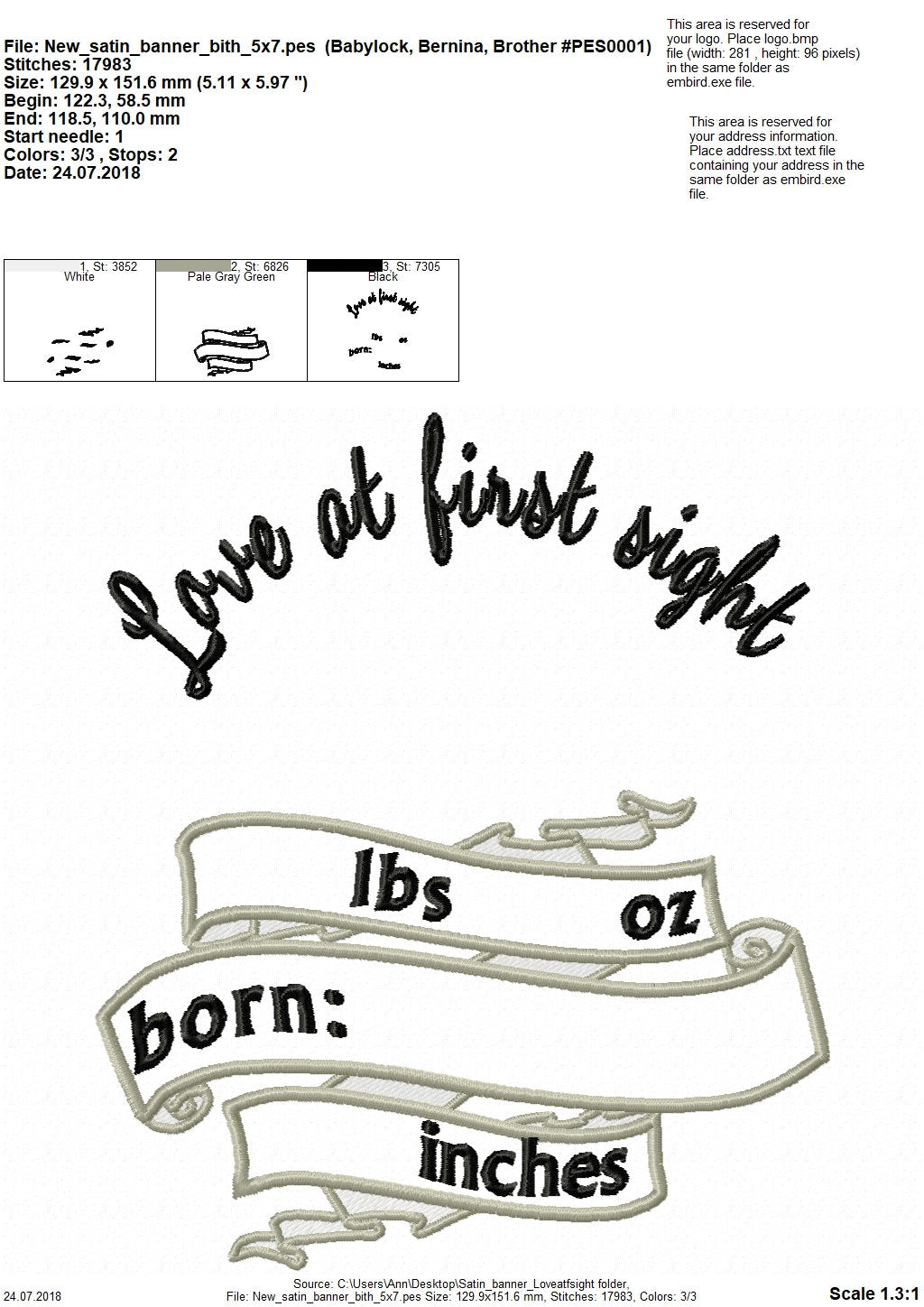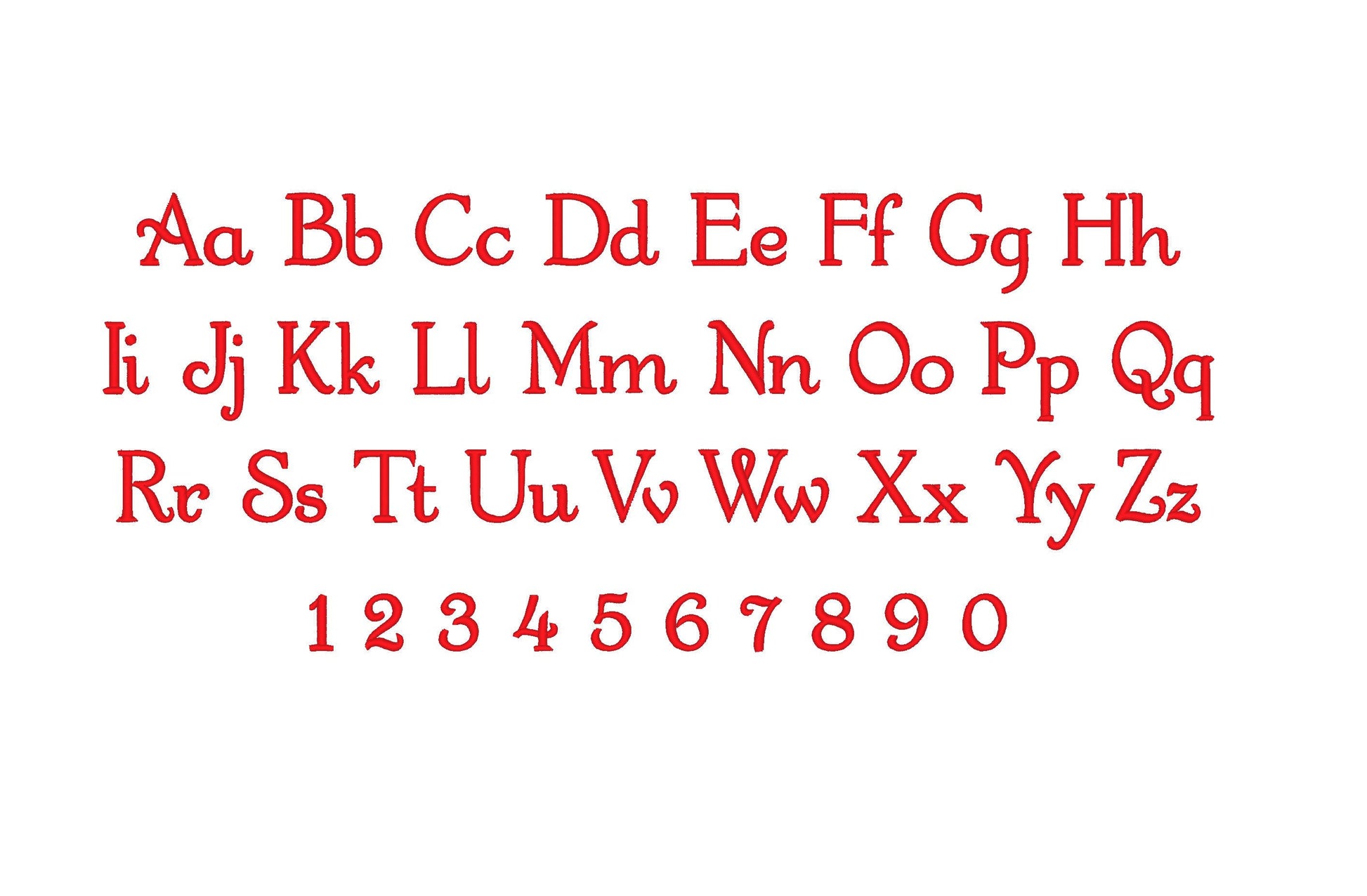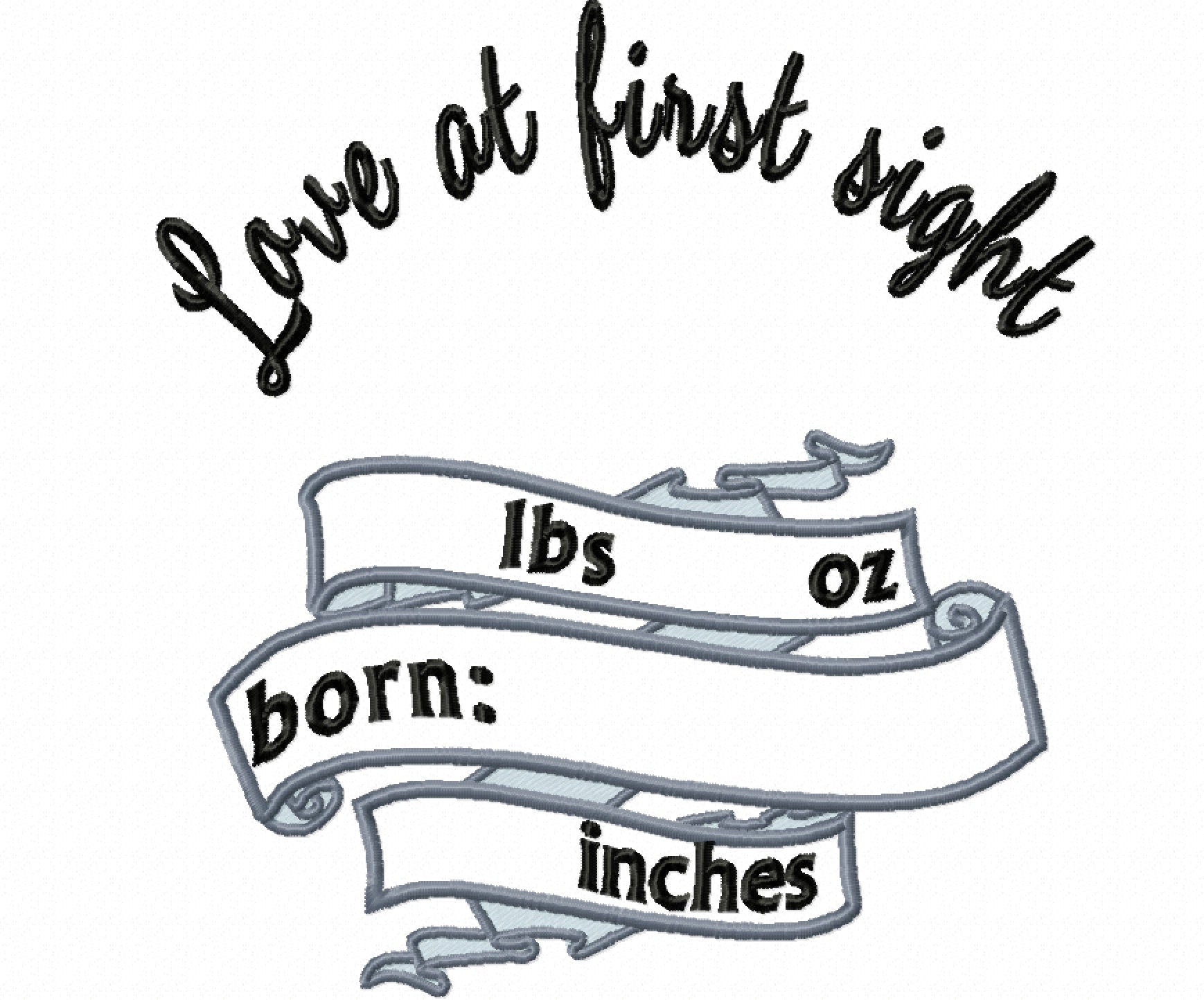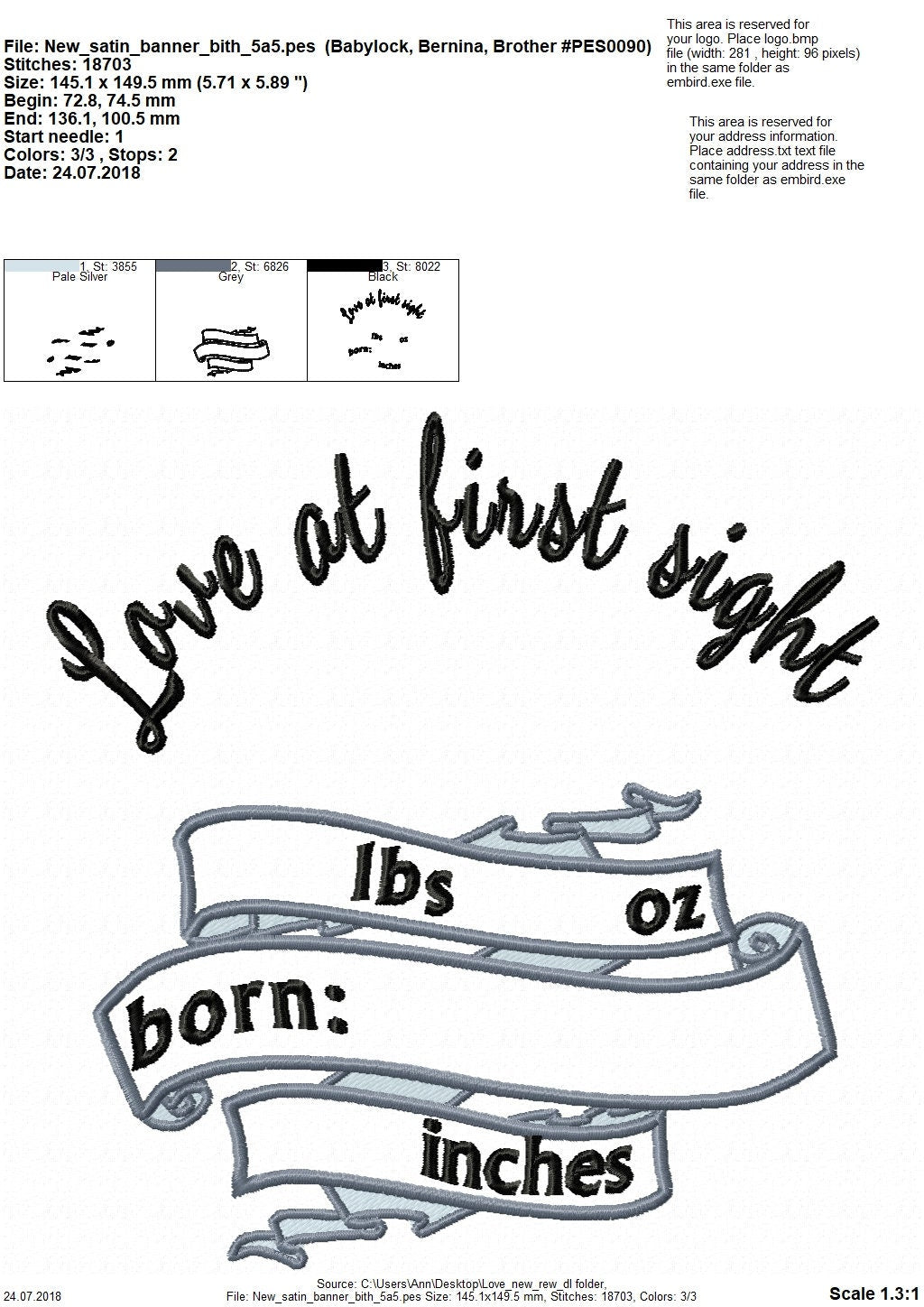
Birth Announcement Template and Mini Font
Or click to open the linkA bold birth announcement template with a matching mini font, for the baby's name and birth details on quilts, pillows and keepsake frames.
The template is 6 inches. Fill in the name, date, weight and length with the mini font, which has uppercase and lowercase letters and numbers 0 to 9 in six sizes: 0.6, 0.8, 1.2, 1.6, 2 and 2.4 inches. Also works as a quilt block.
- Bold birth announcement template, 6 in
- Mini font, uppercase, lowercase, numbers 0 to 9
- 6 font sizes, 0.6 to 2.4 in